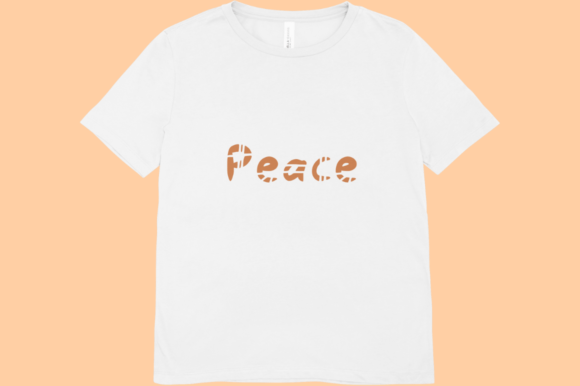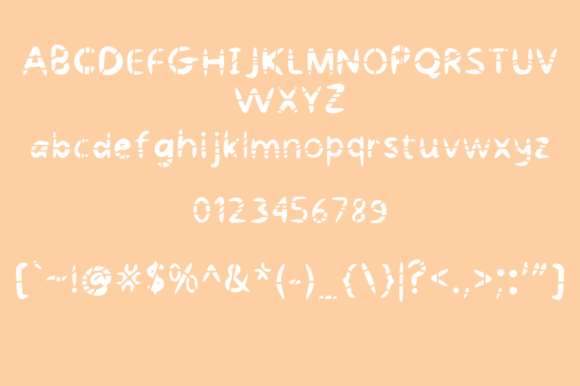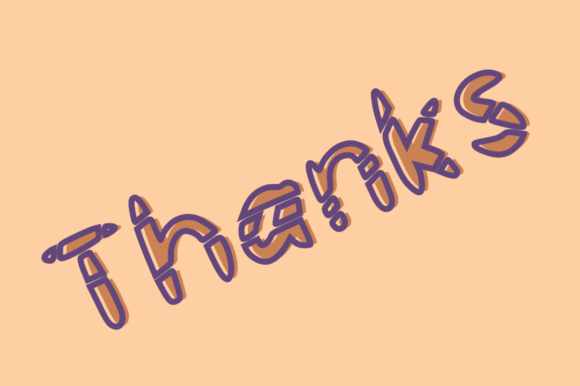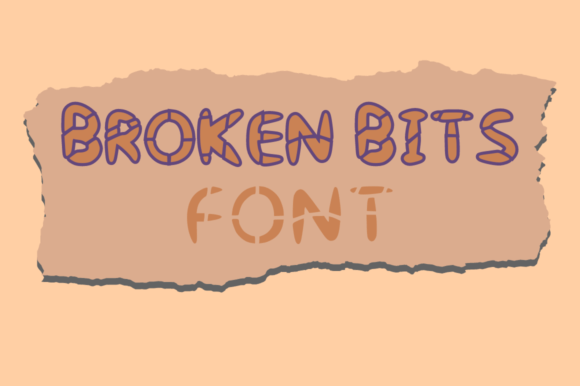
Add a Creative Twist to Your Designs with Broken Bits Font
In the world of typography, a unique font can make all the difference in setting your design apart from the rest. If you’re looking for a creative way to add some personality to your headlines, posters, and artistic projects, look no further than Broken Bits, a one-of-a-kind hand-drawn font with a fractured style.
What is Broken Bits Font?
Broken Bits is a distinctive font that features a broken, fractured style that’s perfect for designers and crafters who want to add a touch of whimsy to their work. With its hand-drawn aesthetic, this font is ideal for creating eye-catching headlines, posters, and other artistic projects that require a bit of personality.
Key Features of Broken Bits Font
- Hand-drawn with love: Broken Bits is a carefully crafted font that’s been hand-drawn with attention to detail, giving it a unique and organic feel.
- Fractured style: The font’s fractured style adds a touch of edginess to your designs, making it perfect for projects that require a bit of attitude.
- Comprehensive character set: Broken Bits includes uppercase and lowercase letters, numbers, and punctuation, giving you everything you need to create stunning designs.
Why Choose Broken Bits Font?
So why choose Broken Bits font for your next design project? Here are just a few reasons why this font stands out:
- Adds a creative twist: Broken Bits adds a unique touch to your designs, setting them apart from the usual run-of-the-mill fonts.
- Perfect for artistic projects: Whether you’re working on a poster, a headline, or an artistic project, Broken Bits is the perfect font to add some personality and flair.
- Easy to use: With its comprehensive character set and clean design, Broken Bits is easy to use and integrate into your projects.
How to Use Broken Bits Font
Using Broken Bits font is easy! Here are a few tips to get you started:
- Experiment with different sizes: Broken Bits looks great in large and small sizes, so don’t be afraid to experiment with different sizes to find the one that works best for your project.
- Mix and match with other fonts: Broken Bits pairs well with other fonts, so try mixing and matching it with other fonts to create a unique look.
- Use it for headlines and titles: Broken Bits is perfect for headlines and titles, where its fractured style can really make an impact.